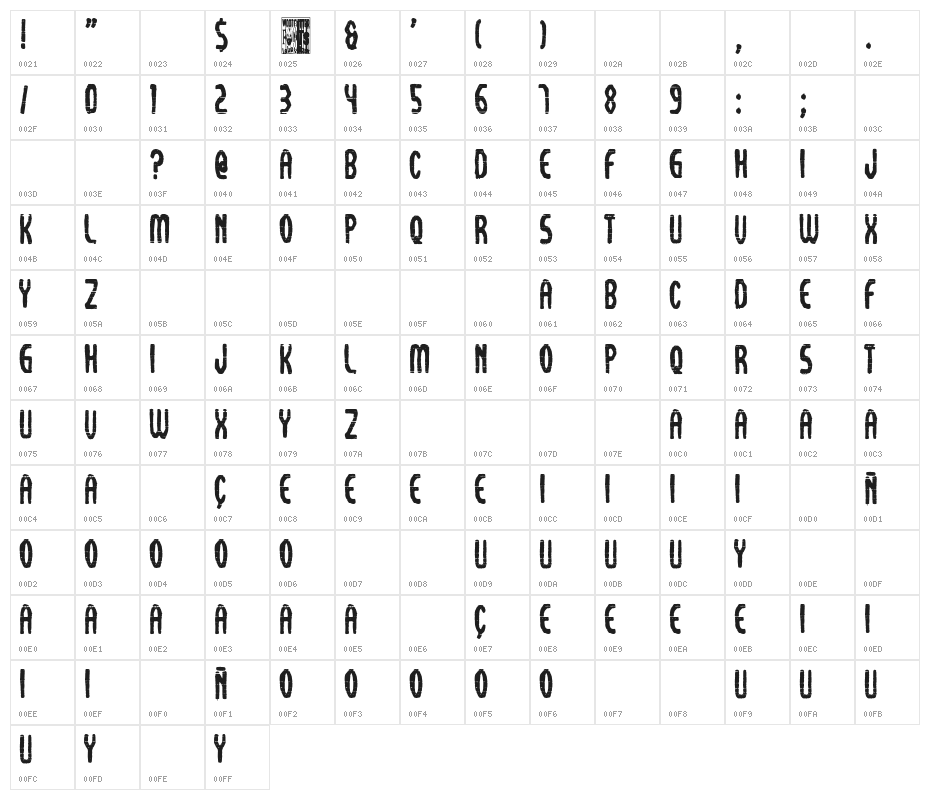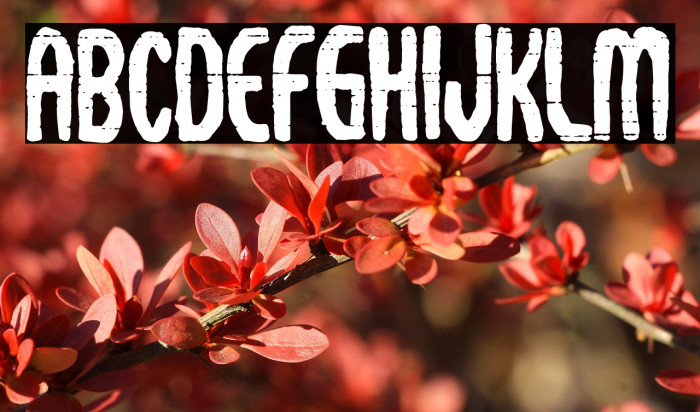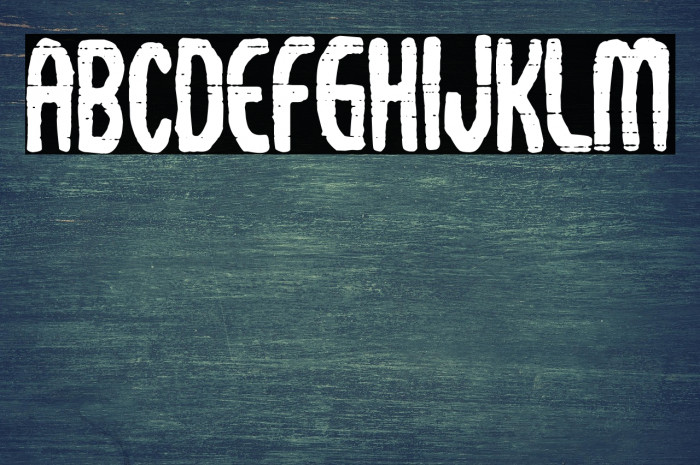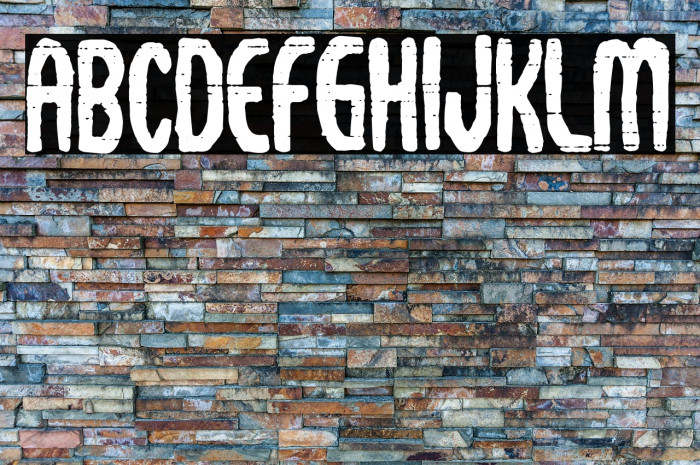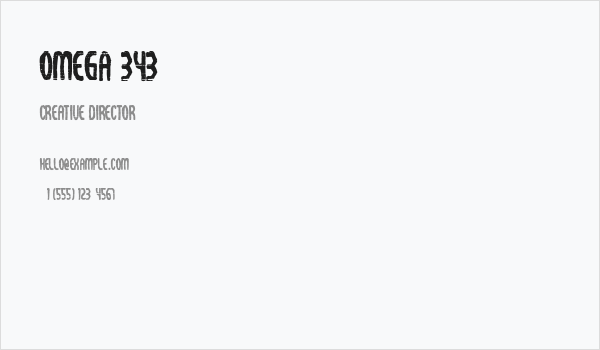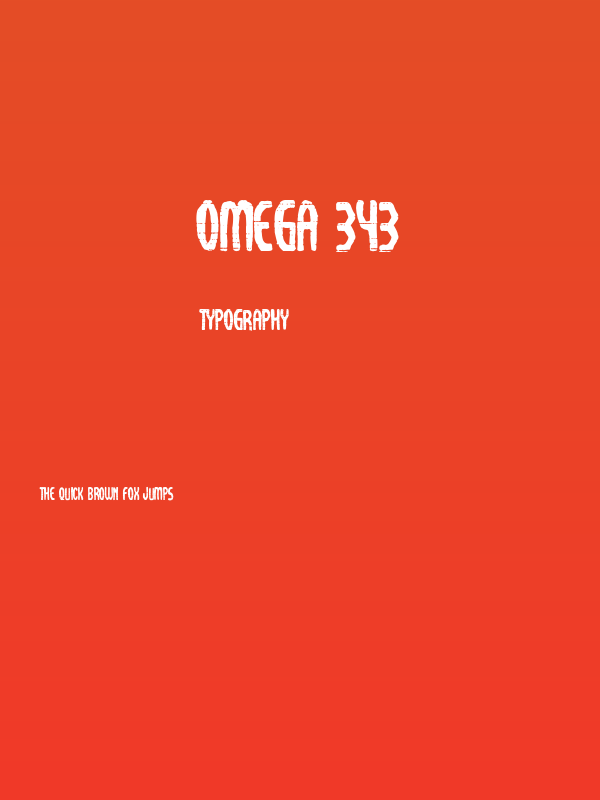
Omega 343 Font
Omega 343 Description
This font exhibits a rugged and distressed appearance, characterized by its bold and blocky letterforms. The texture gives it a worn, vintage feel, reminiscent of old woodcut prints. Each character is distinct, with a slightly uneven edge that adds to its handcrafted aesthetic. The uppercase and lowercase letters maintain a consistent style, with the numerals and special characters following suit. This font's unique style makes it stand out, offering a sense of authenticity and character.
| Proposed Projects | Ideal for vintage-themed designs, posters, branding for rustic or artisanal products, and any project requiring a bold, handcrafted look. |